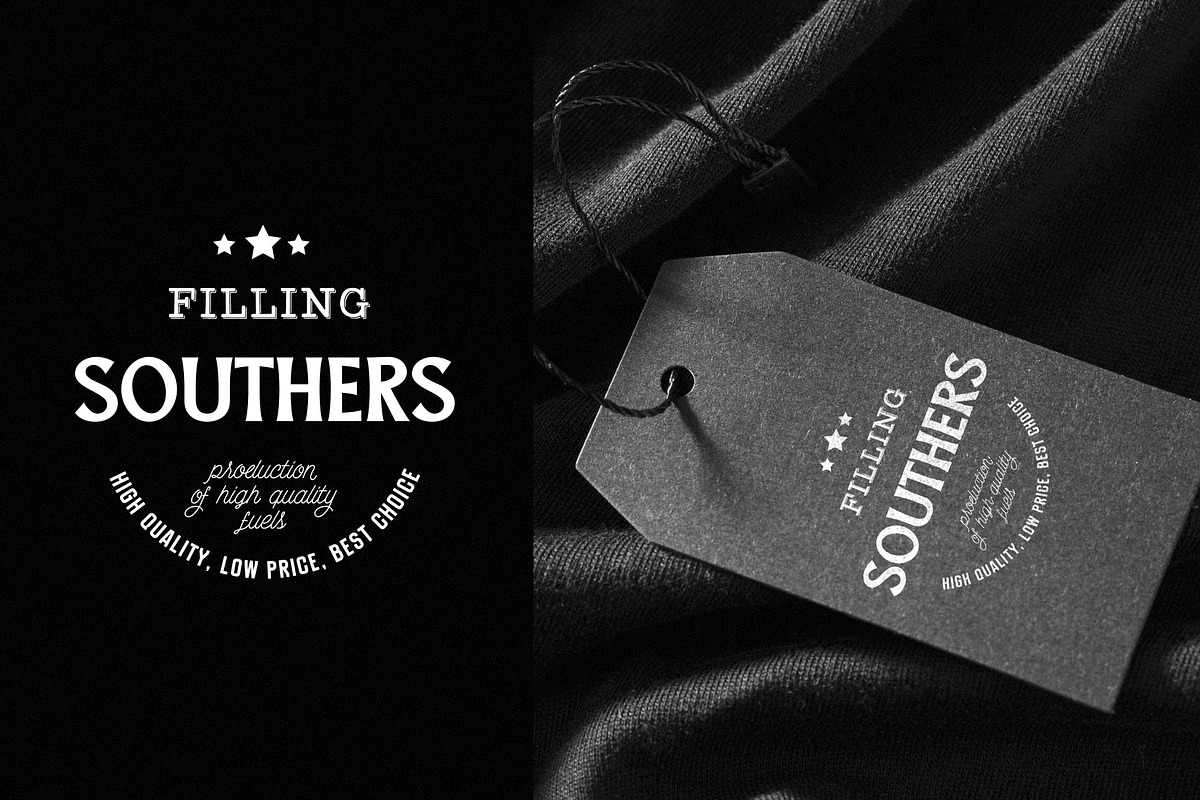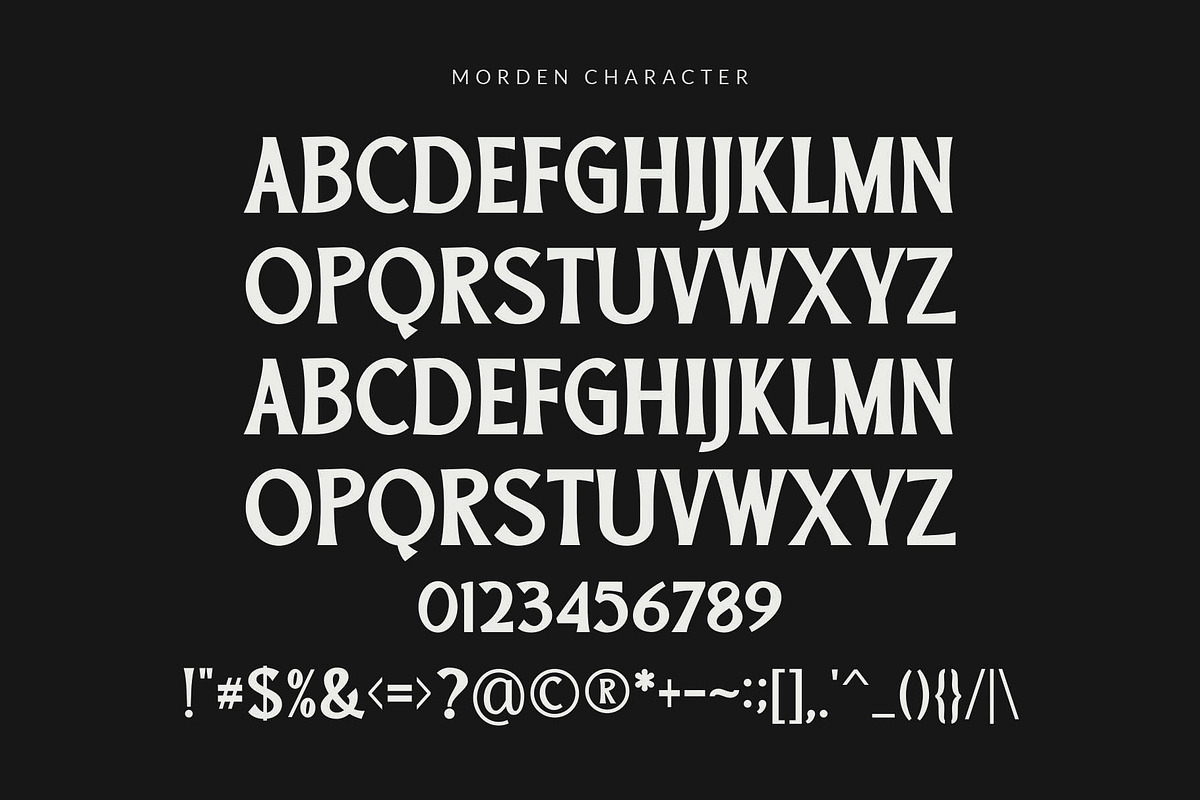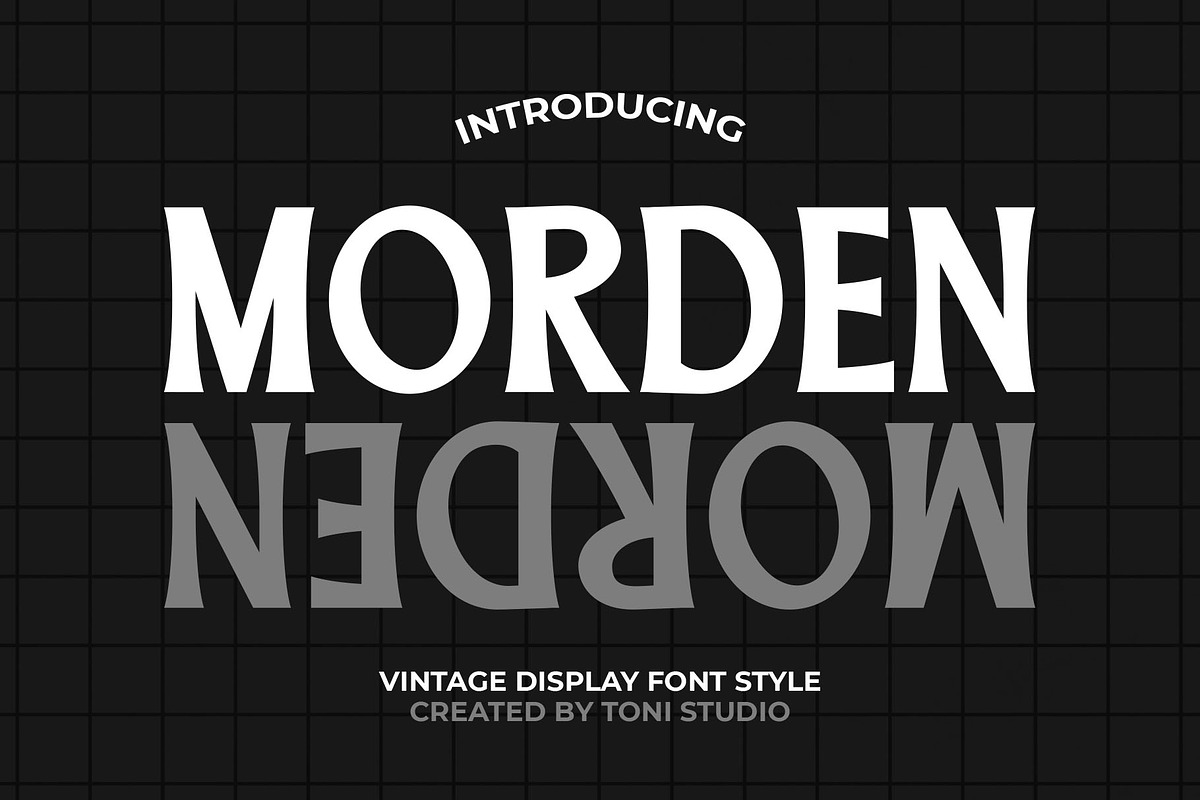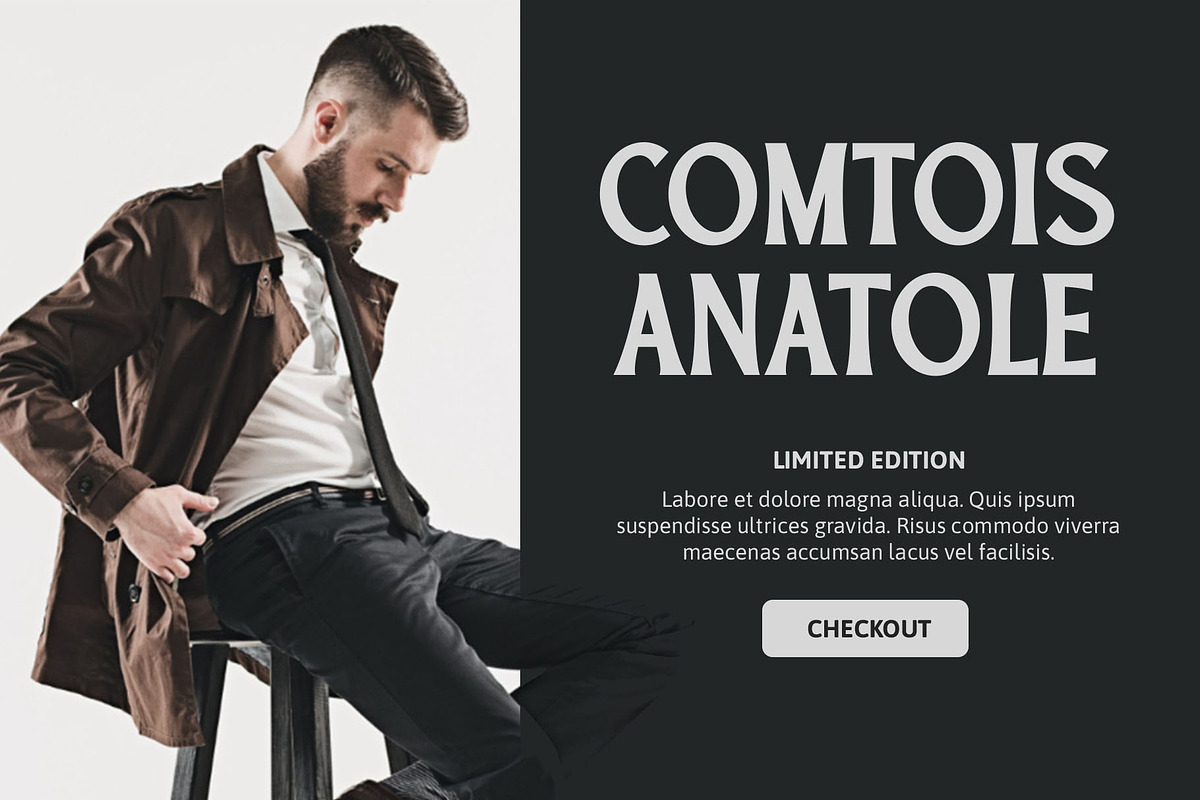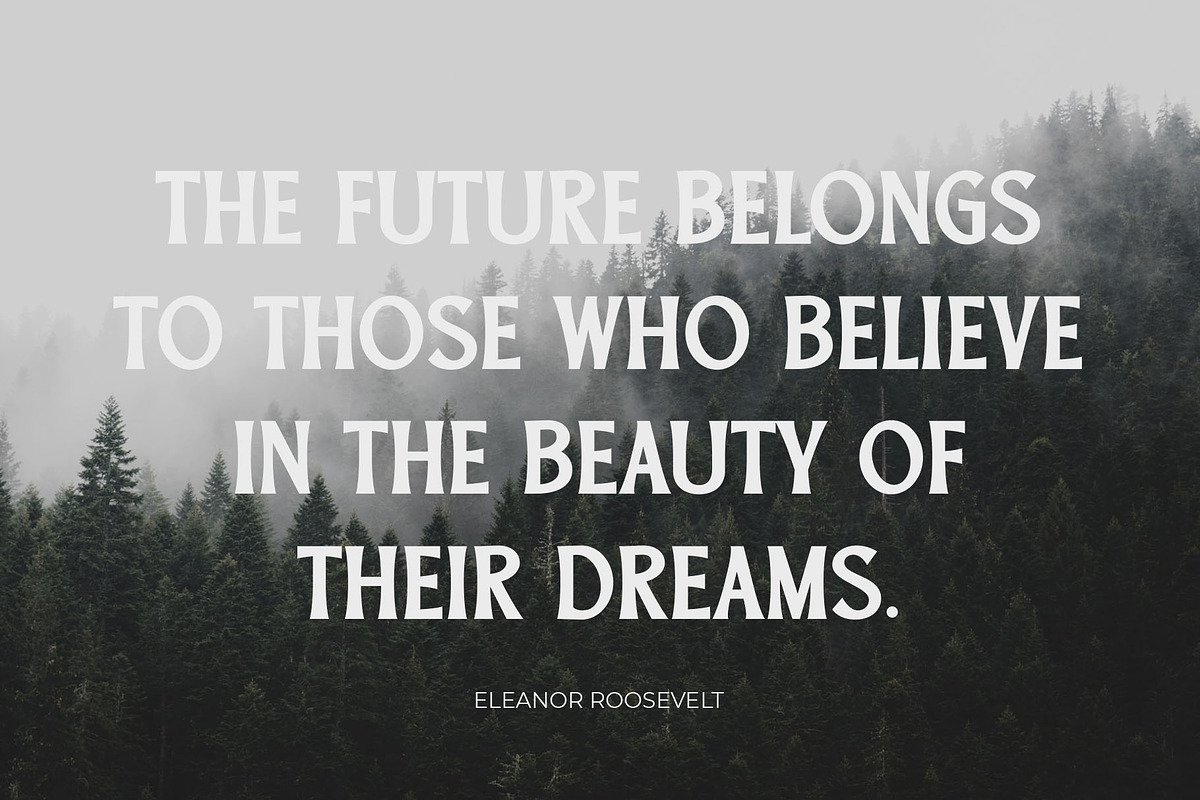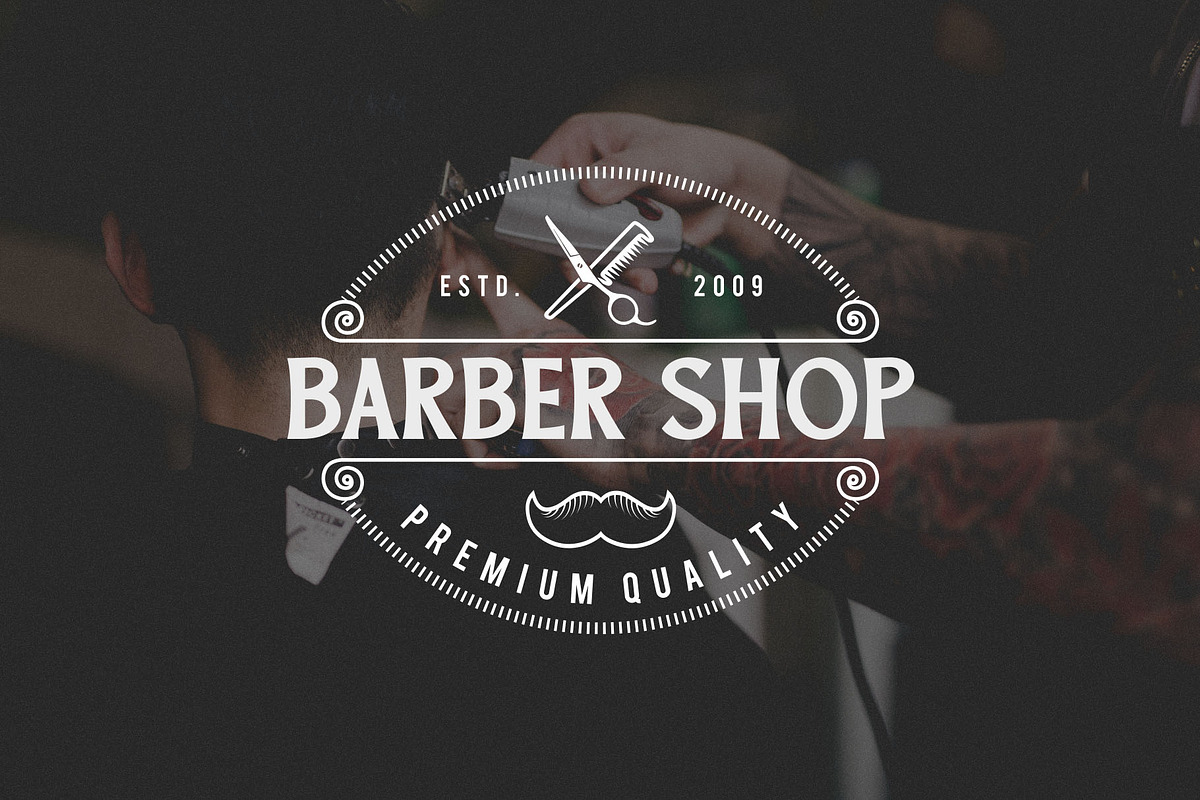
Morden || vintage serif
Present...! Morden serif display, a masculine vintage display font with a modern twist. This nostalgic font is super fun to work with and perfect for logos and designers but works really well for all purposes. Perfect for editorial, branding and poster design etc. Multilingual Support